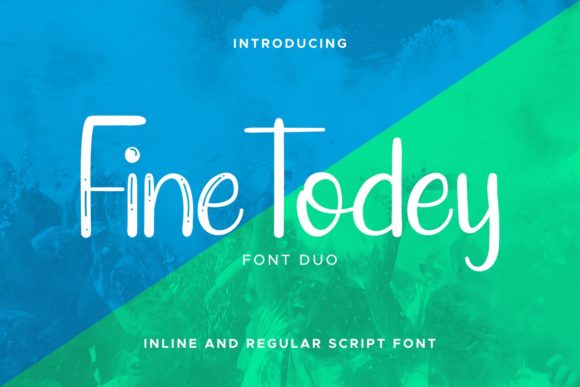
Introducing the Fine Todey Font: Elevate Your Design with a Touch of Elegance
The Fine Todey font is a beautiful script font with a handwriting style that exudes elegance and sophistication. This versatile font comes in two distinct styles: regular and textured, offering users a range of creative possibilities. Whether you’re designing logos, stationery, posters, business cards, or any other visual material, the Fine Todey font is sure to add a classic and stylish feel to your work.
What Makes the Fine Todey Font Stand Out?
The Fine Todey font is a script font that boasts a unique handwriting style, characterized by its flowing lines and cursive connections. The font’s design is inspired by traditional calligraphy, with a modern twist that makes it perfect for a wide range of applications. The two styles offered by the Fine Todey font – regular and textured – provide users with the flexibility to choose the perfect look for their design.
Regular Style: A Classic and Elegant Look
The regular style of the Fine Todey font is a beautiful example of traditional script typography. Its smooth, flowing lines and elegant connections make it perfect for designs that require a touch of sophistication. This style is ideal for use in:
- Logos and branding materials
- Stationery and letterheads
- Posters and flyers
- Business cards and invitations
Textured Style: A Unique and Creative Twist
The textured style of the Fine Todey font adds a unique and creative twist to the traditional script typography. This style features a rough, textured effect that gives the font a more dynamic and expressive look. The textured style is perfect for use in:
- Designs that require a more artistic and creative approach
- Posters and flyers that need to grab attention
- Social media graphics and digital content
- Packaging and product design
Why Choose the Fine Todey Font?
The Fine Todey font offers a range of benefits that make it an excellent choice for designers and businesses. Some of the key advantages of using the Fine Todey font include:
- Elegant and sophisticated design
- Versatile and flexible, with two distinct styles
- Perfect for a wide range of applications, from logos to posters
- Easy to read and understand, even in small sizes
How to Use the Fine Todey Font in Your Design
Using the Fine Todey font in your design is easy and straightforward. Here are some tips to help you get started:
Choosing the Right Style
When choosing between the regular and textured styles of the Fine Todey font, consider the tone and mood of your design. The regular style is perfect for designs that require a classic and elegant look, while the textured style is ideal for designs that need a more creative and artistic approach.
Pairing with Other Fonts
To create a visually appealing design, it’s essential to pair the Fine Todey font with other fonts that complement its style. Some font pairing suggestions include:
- Serif fonts, such as Times New Roman or Garamond, for a classic and traditional look
- Sans-serif fonts, such as Helvetica or Arial, for a modern and clean look
- Script fonts, such as Pacifico or Great Vibes, for a more creative and artistic approach
Adjusting Font Size and Color
When using the Fine Todey font in your design, it’s essential to adjust the font size and color to ensure that it is legible and visually appealing. Here are some tips:
- Use a font size that is large enough to be read easily, but not so large that it overwhelms the design
- Choose a color that complements the design and adds contrast to the text
The Fine Todey font is a beautiful and versatile script font that can add a touch of elegance and sophistication to any design. With its two distinct styles – regular and textured – this font offers users a range of creative possibilities. Whether you’re designing logos, stationery, posters, business cards, or any other visual material, the Fine Todey font is sure to be a great choice.